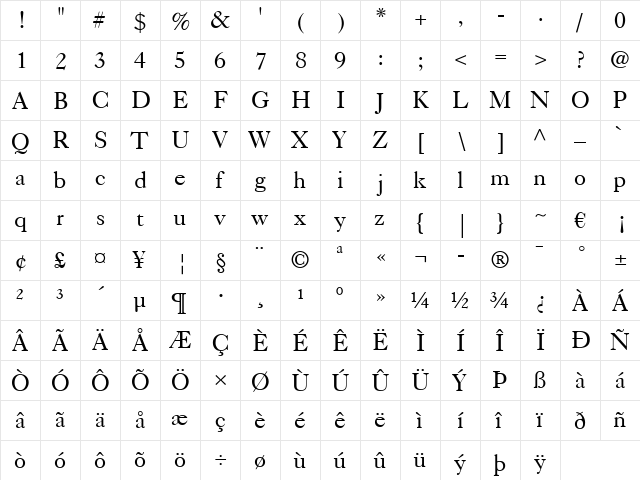
Caslon 540 LT Regular Font Preview
Caslon 540 LT Regular
Design Context for Caslon 540 LT Typeface
Caslon 540 LT offers clean, dependable letterforms without strong stylistic allegiance, making it a practical choice for designers who need flexibility. Its slender proportions lend an understated elegance to any composition.